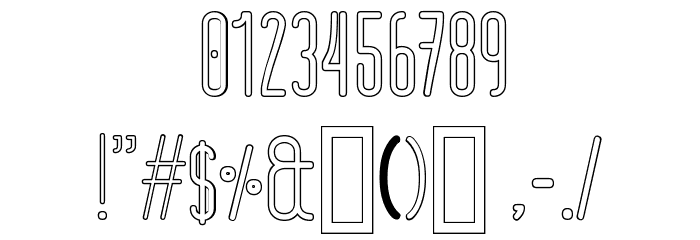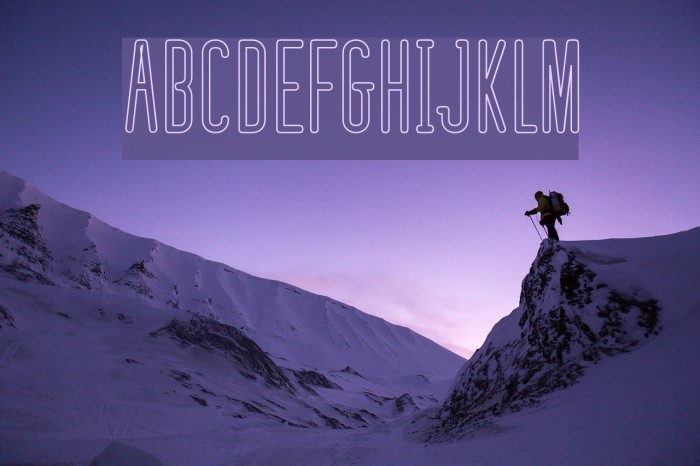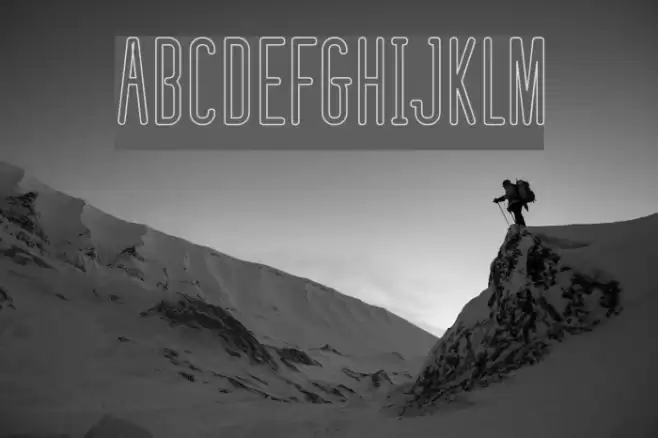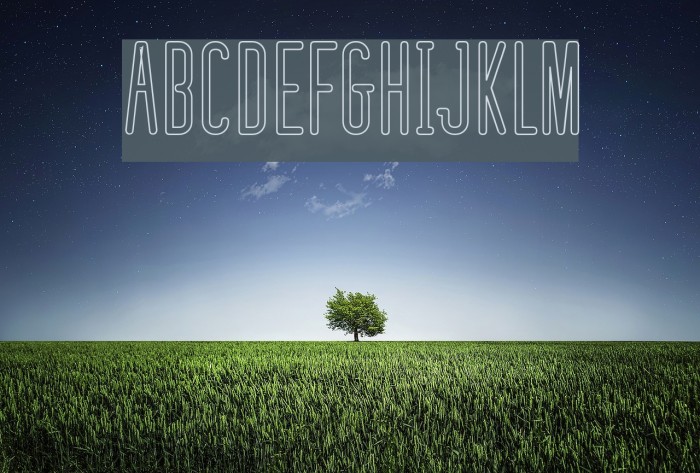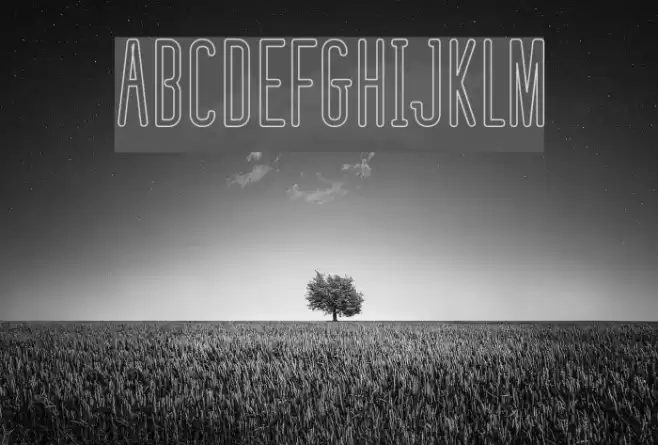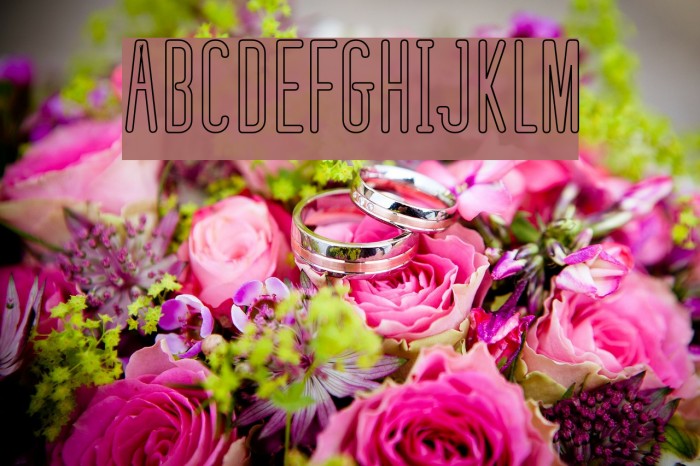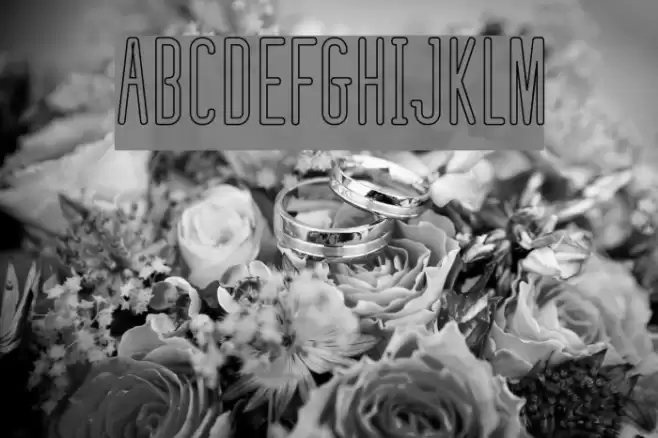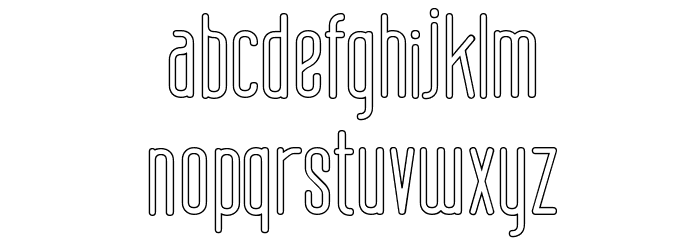
defatted milk Outline Font
defatted milk Outline Description
This font features a modern and clean outline style, characterized by its hollow, linear design. The uppercase and lowercase letters maintain a consistent height and width, creating a uniform appearance. The numerals and special characters follow the same outline pattern, ensuring cohesion across all glyphs. The font's geometric structure is balanced with rounded edges, giving it a friendly yet professional look. Its simplicity and clarity make it suitable for a variety of design applications, from digital to print media.
| Proposed Projects | Ideal for branding, posters, headlines, and digital media where a contemporary and stylish look is desired. |